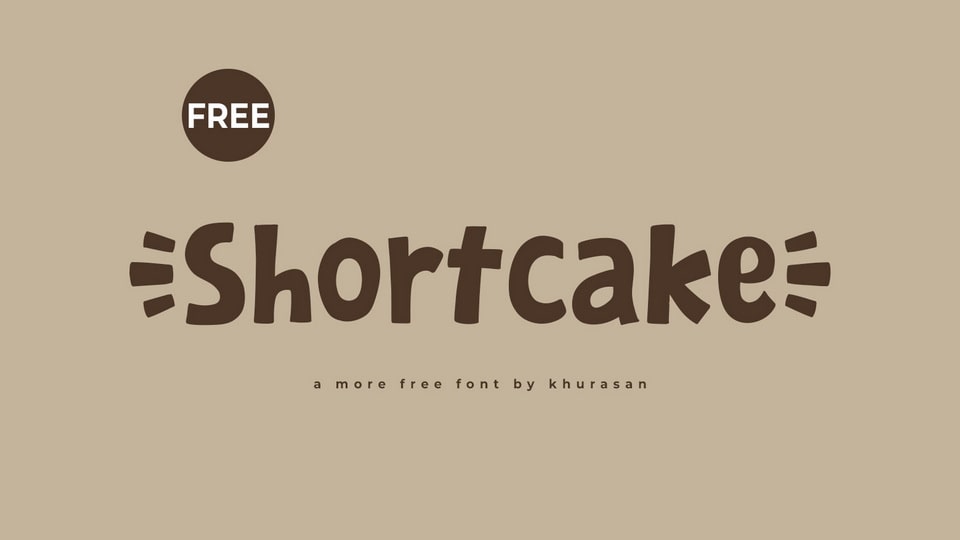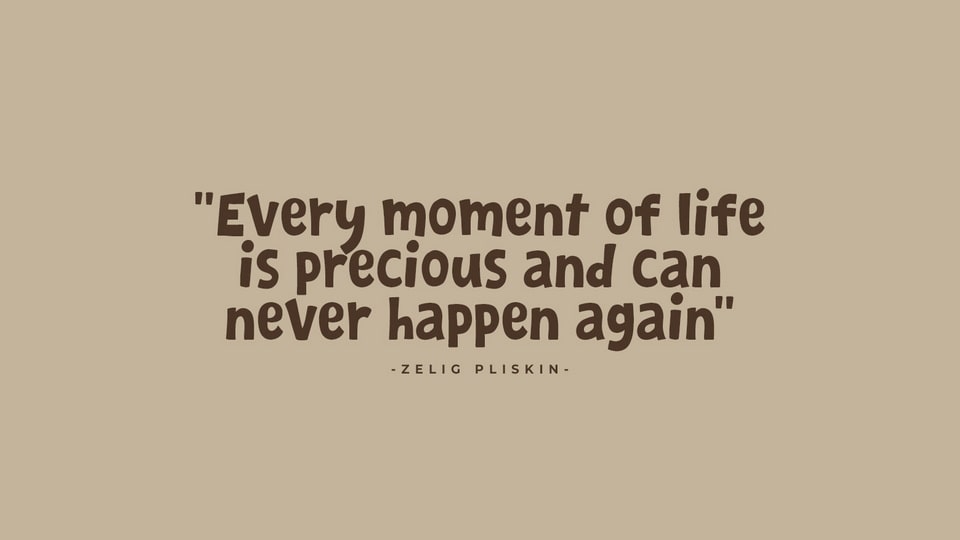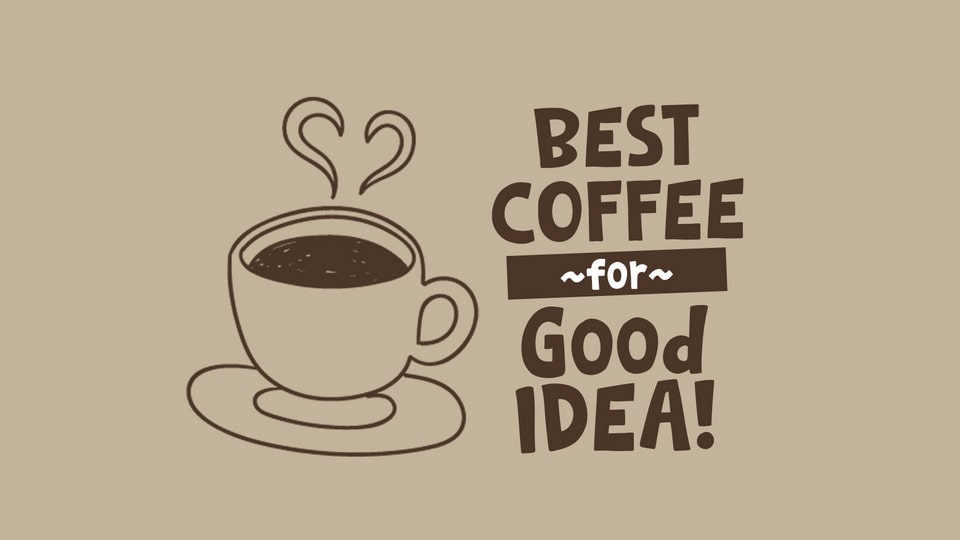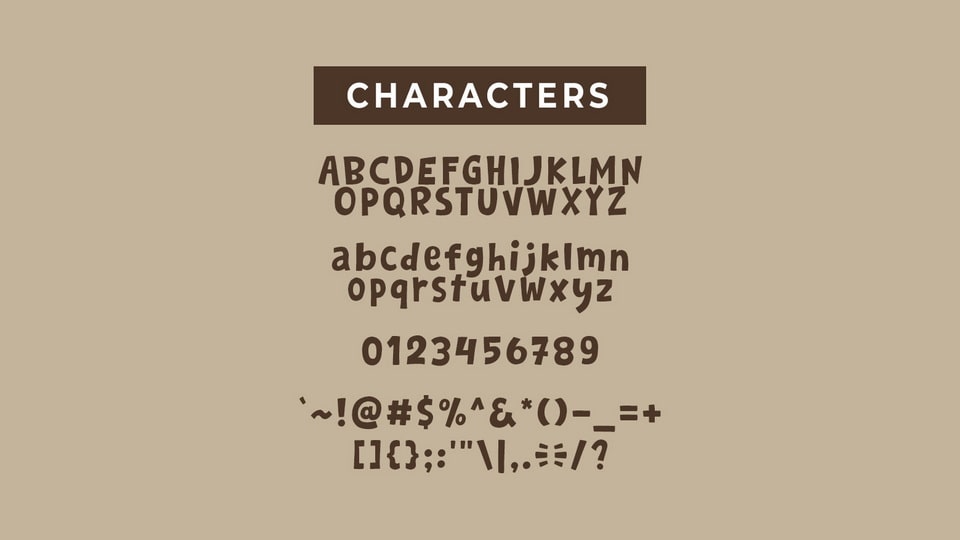
Shortcake is a playful and quirky hand-crafted font that brings a burst of creativity and fun to your designs. It features lively, free-spirited letterforms with charming irregularities and imaginative details, capturing the essence of hand-drawn artistry. Perfect for playful invitations, whimsical branding, cheerful posters, and vibrant social media graphics, this font adds a sense of joy and individuality to your text.
Shortcake font is designed to ensure a natural, hand-crafted feel, making your designs radiate warmth and personality. Its playful and quirky nature makes it ideal for projects that seek to stand out with a unique and engaging aesthetic.